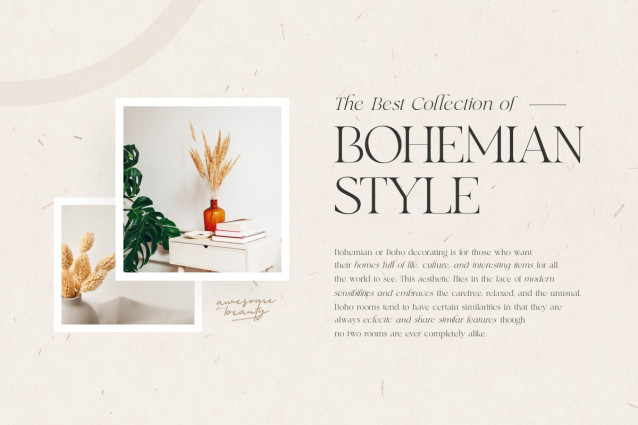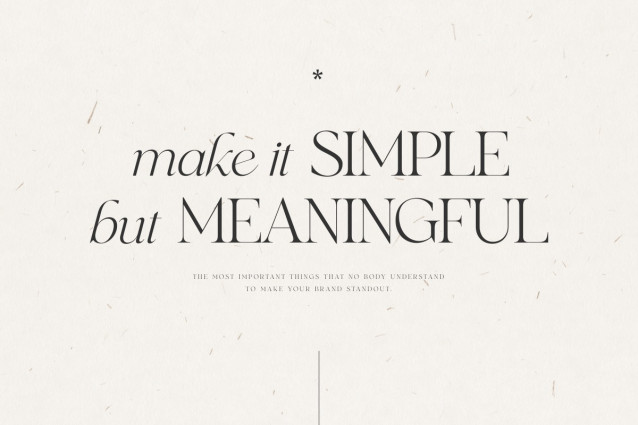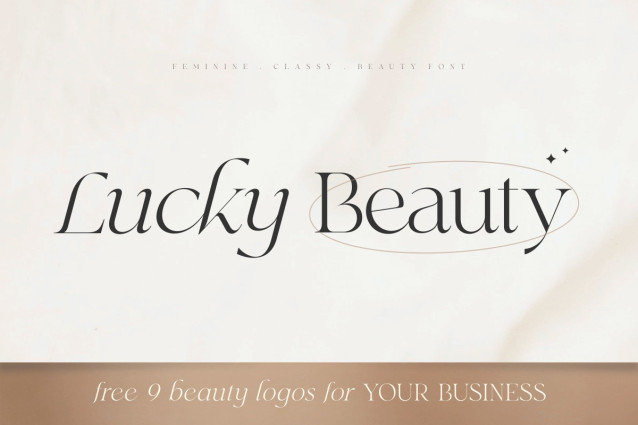
Lucky Beauty Font
Lucky Beauty Font is a Styled Classy Beauty Font pairing between regular and italic style. Crafted specially for Branding needs to make any elements standout and Perfect beauty look. With a simple and classy shape will make your design more classy, elegant, and certainly unique with this font.